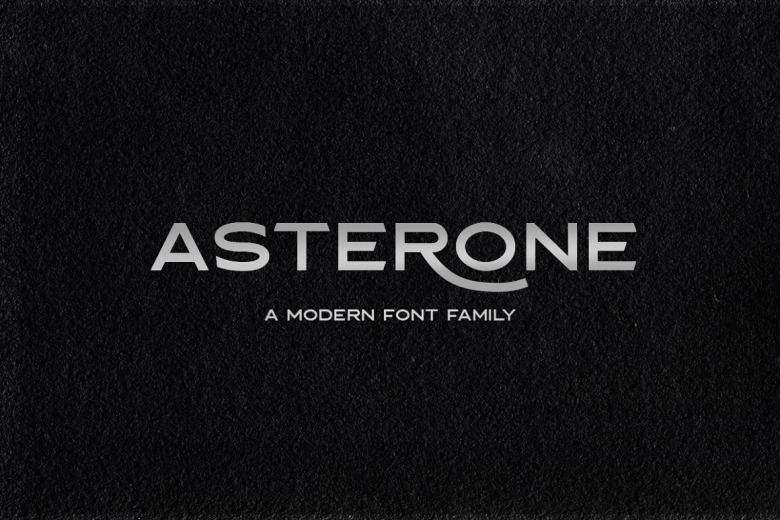
Asterone Font
Asterone Sans Serif Font, designed by letterhend is a modern sans serif Typeface with plenty to offer, so you can combine its letters and numbers for dashing headlines, highlighted by the sharp character design, or you can upgrade your logotypes and titles for magazines, books, and branding designs with the selection of unique stylistic alternates and ligatures provided. Asterone is a font for inspiration, challenge, and future vision, one that enables you to create your own universe, and all it takes from you is a single click.